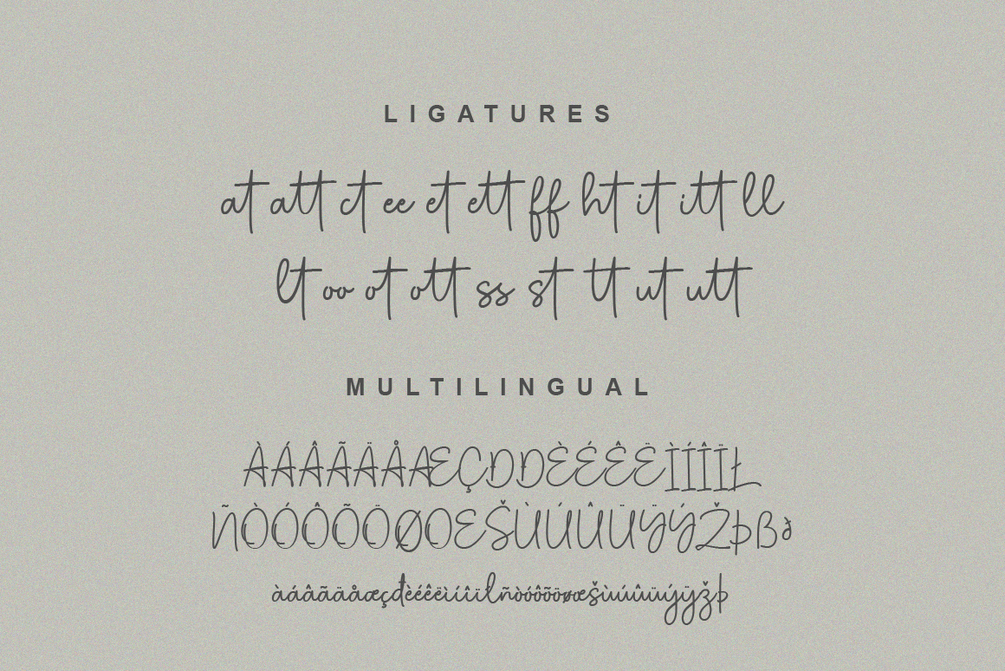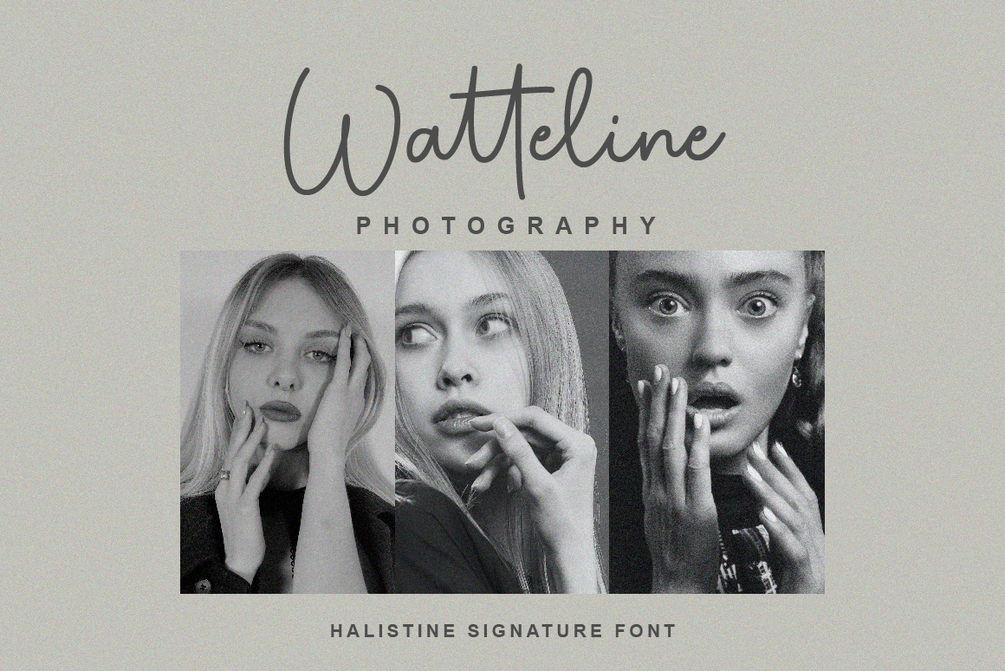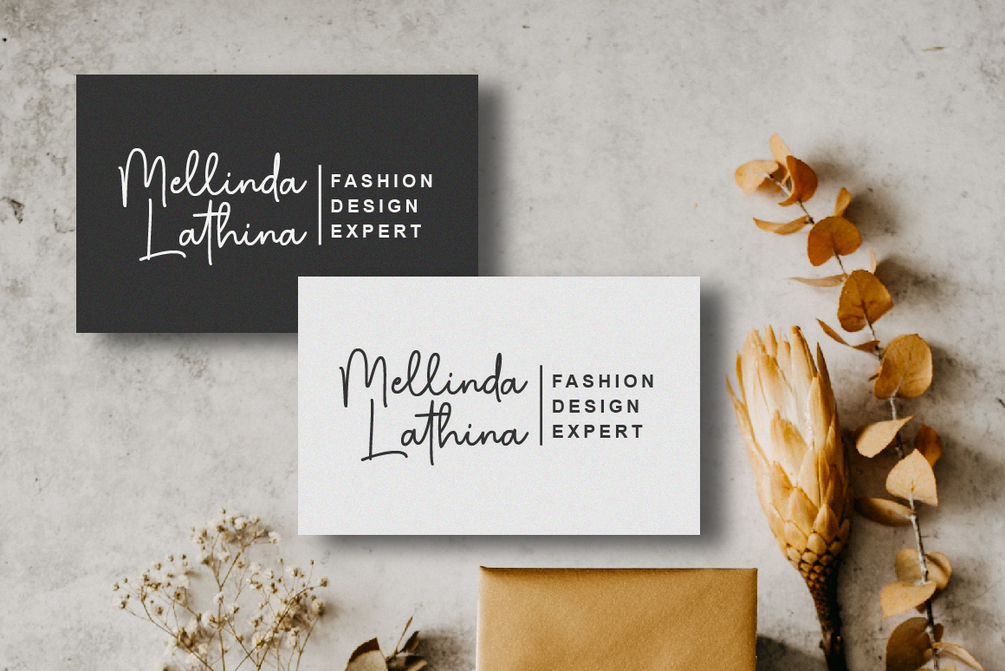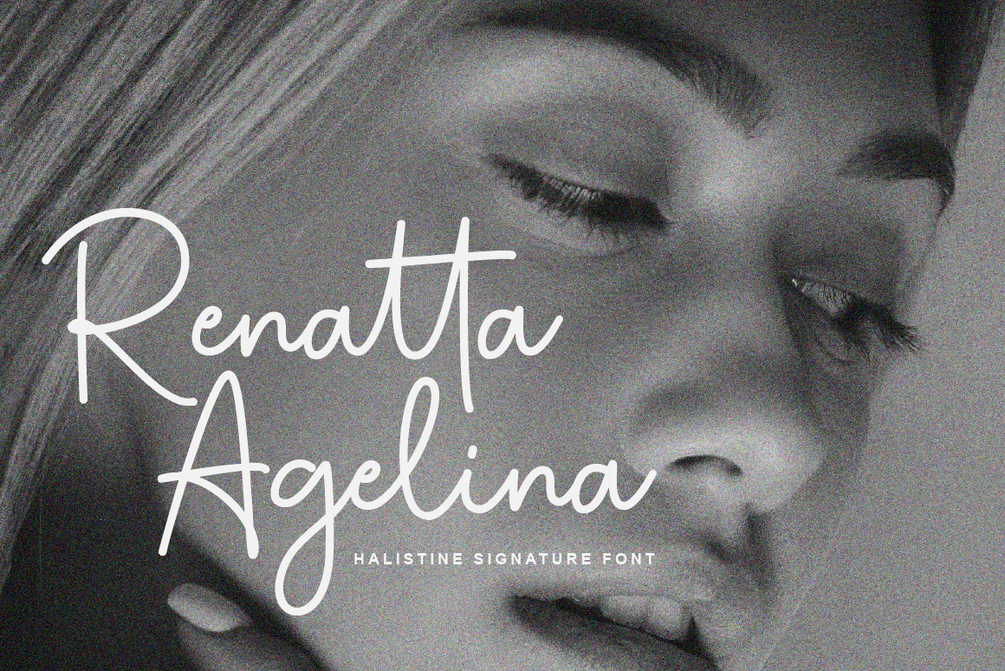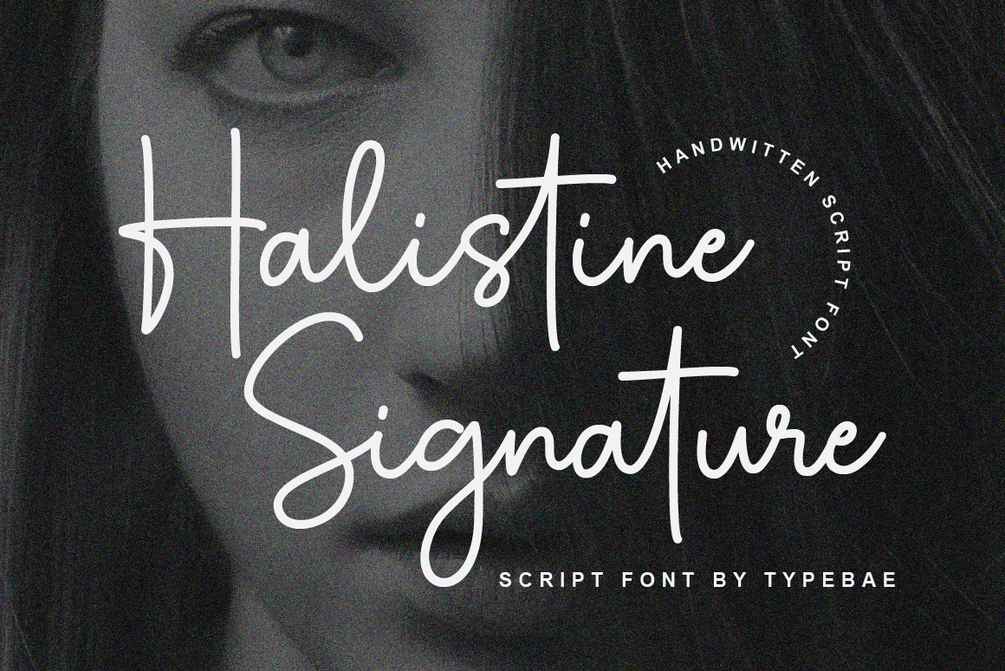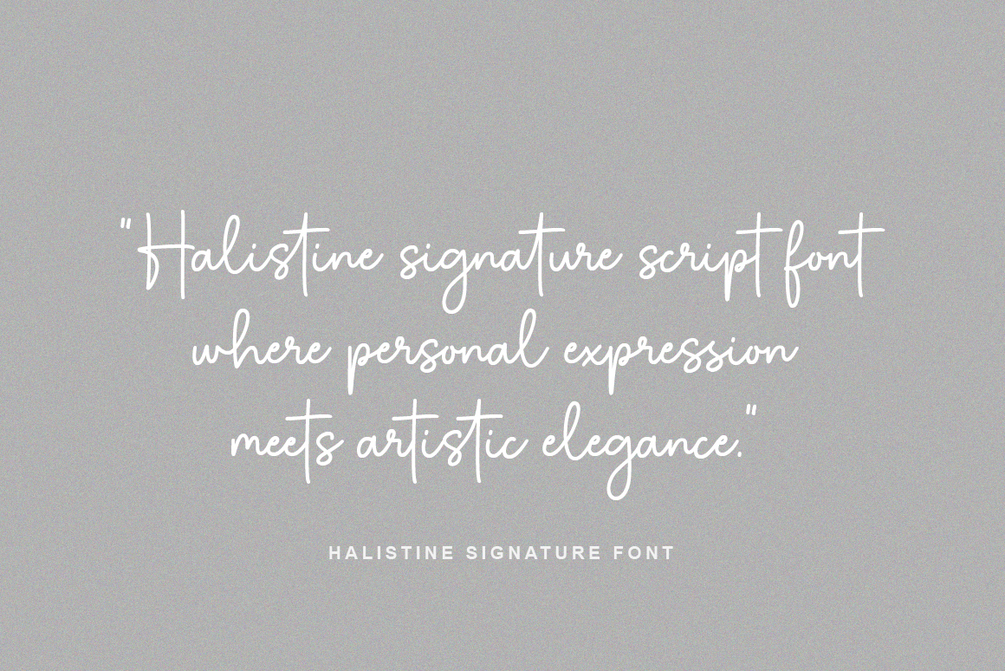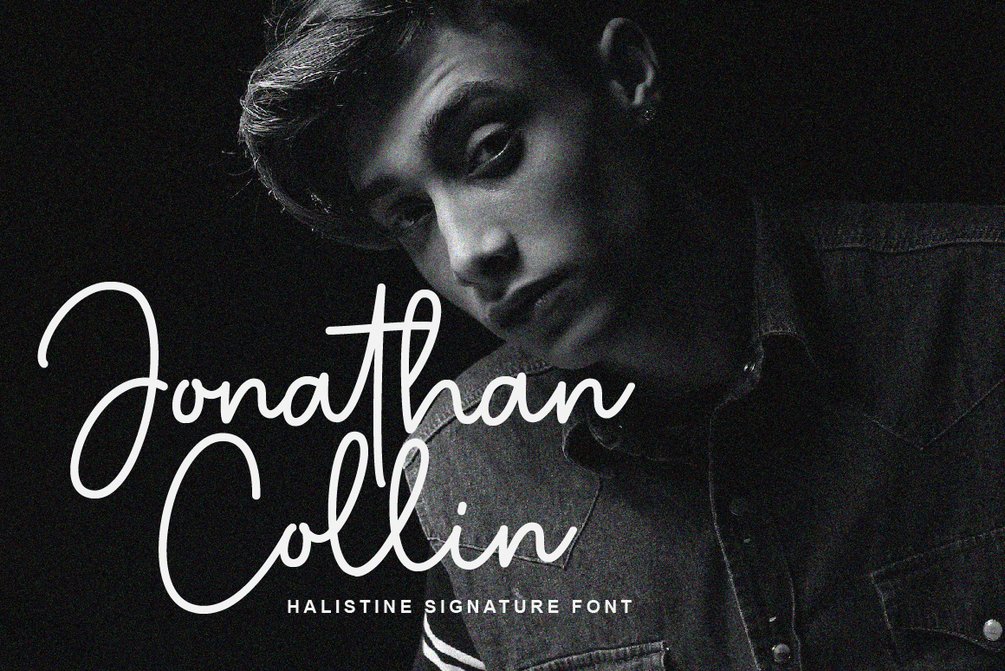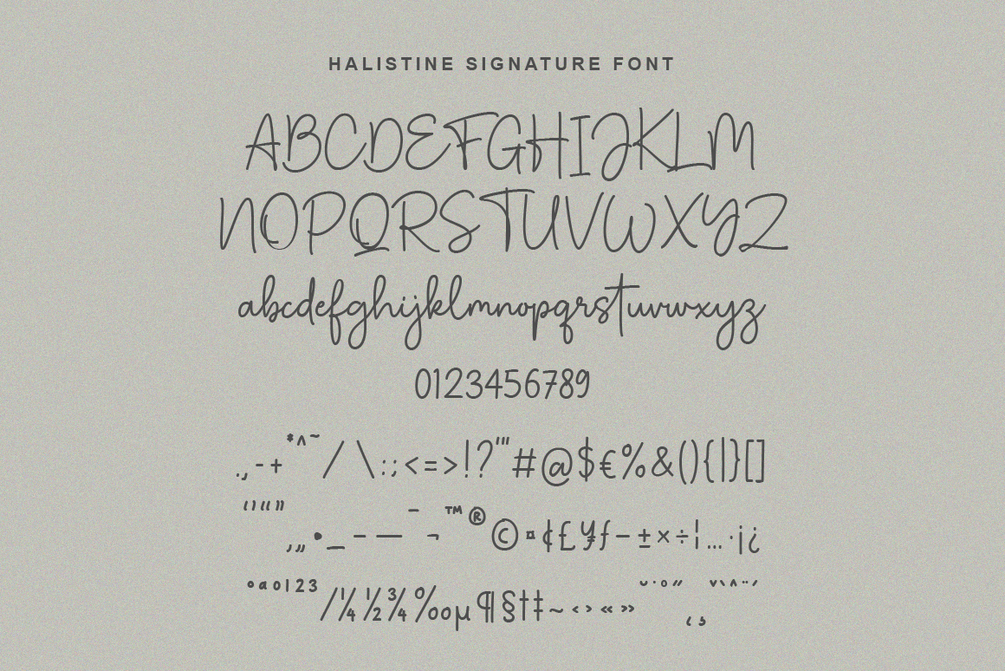
Halistine Signature
Halistine Signature is a monoline script font with a signature style and a handwritten appearance. Inspired by handwritings, this font exudes elegance, smoothness, and a personal touch. This font is suitable for designs that require a personal touch and a casual feel.
• Standard alphabet and punctuation
• Ligature feature
• Multilingual Support: Afrikaans, Basque, Breton, Catalan, Danish, Dutch, English, Finnish, French, Gaelic (Irish, Scots), German, Icelandic, Indonesian, Irish, Italian, Norwegian, Portuguese, Saami (Southern), Spanish, Swahili, Swedish.